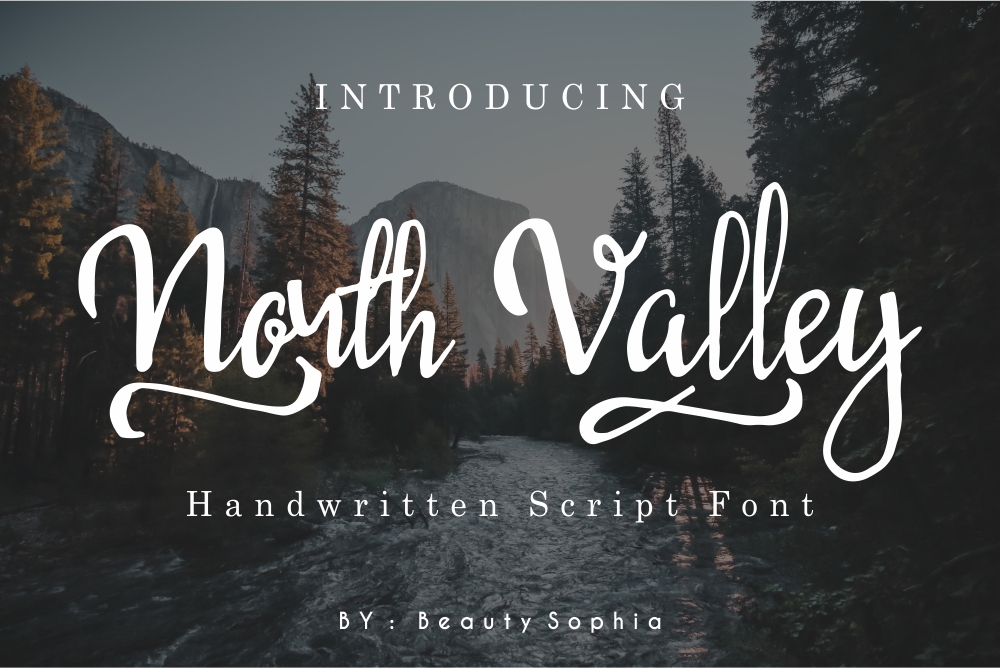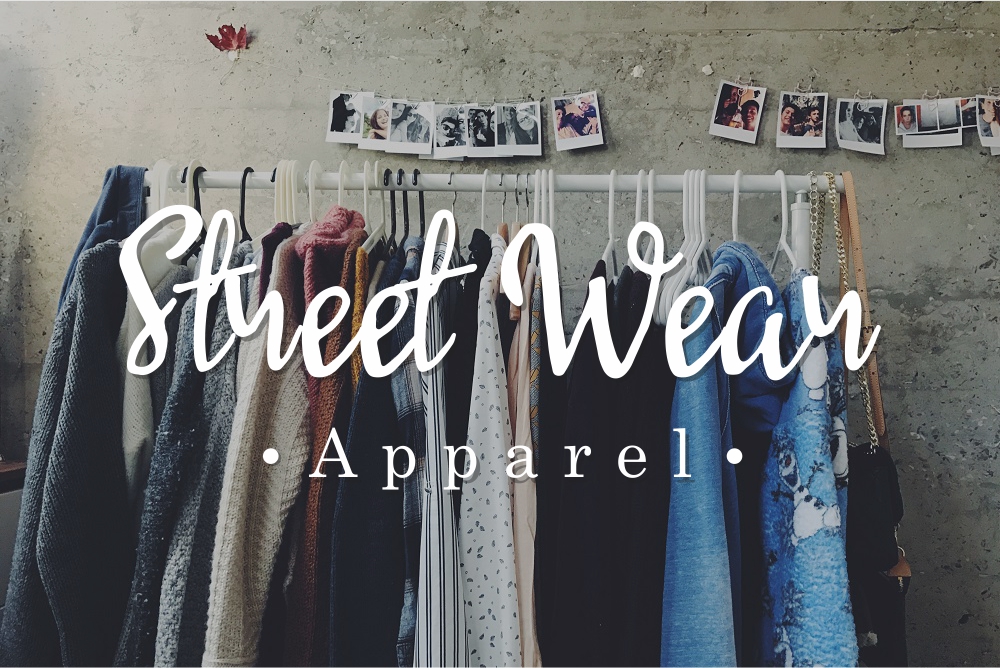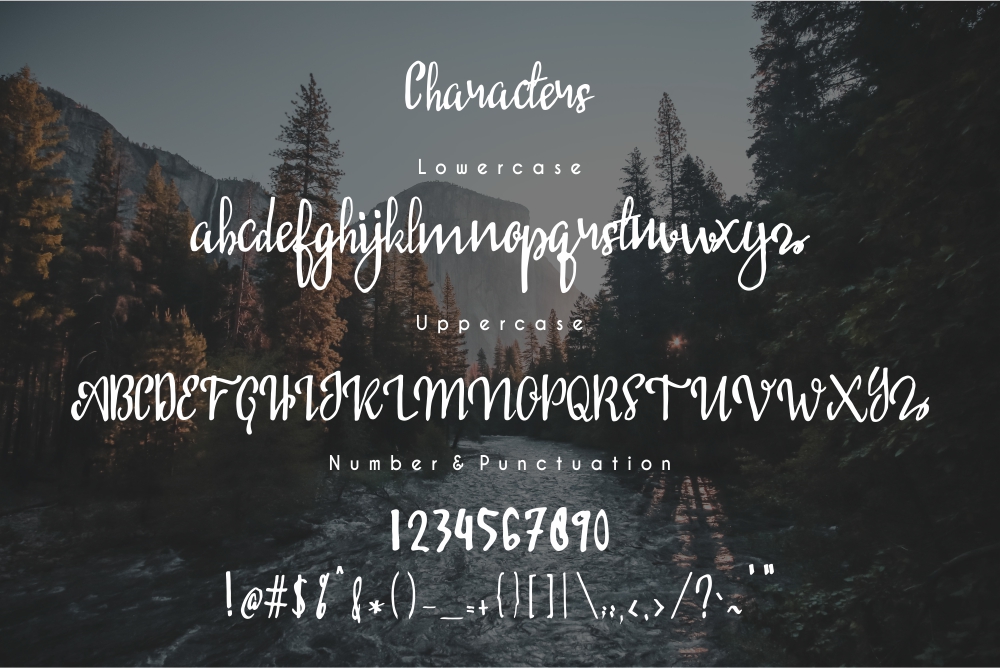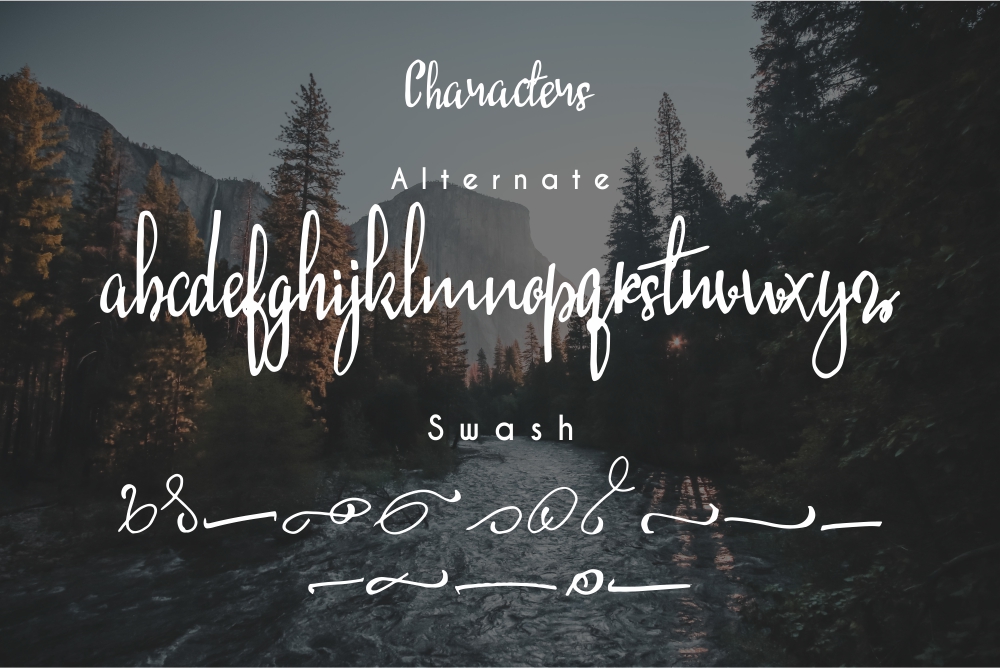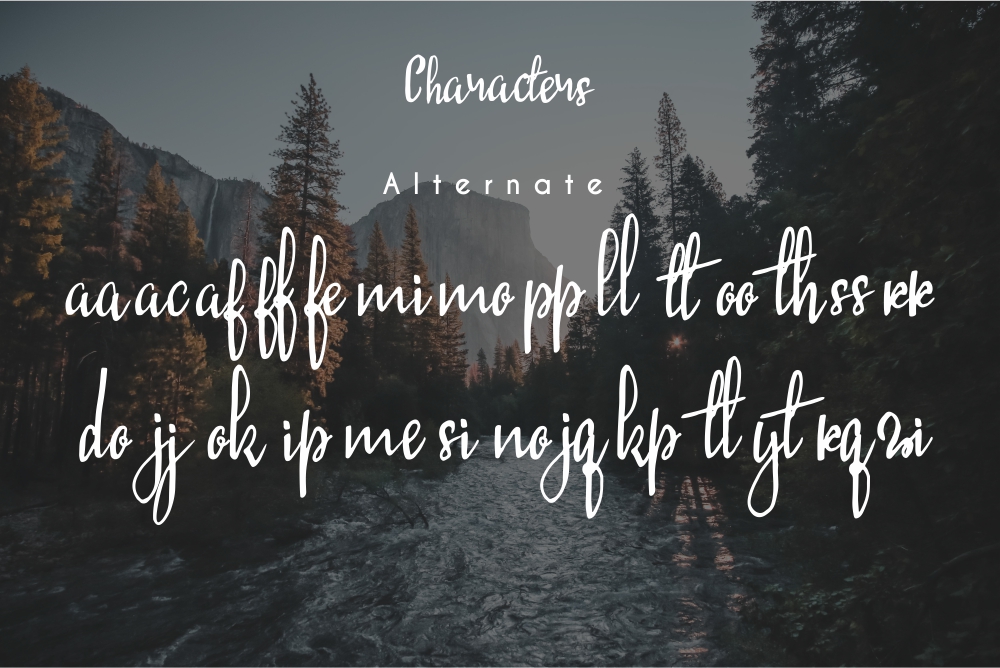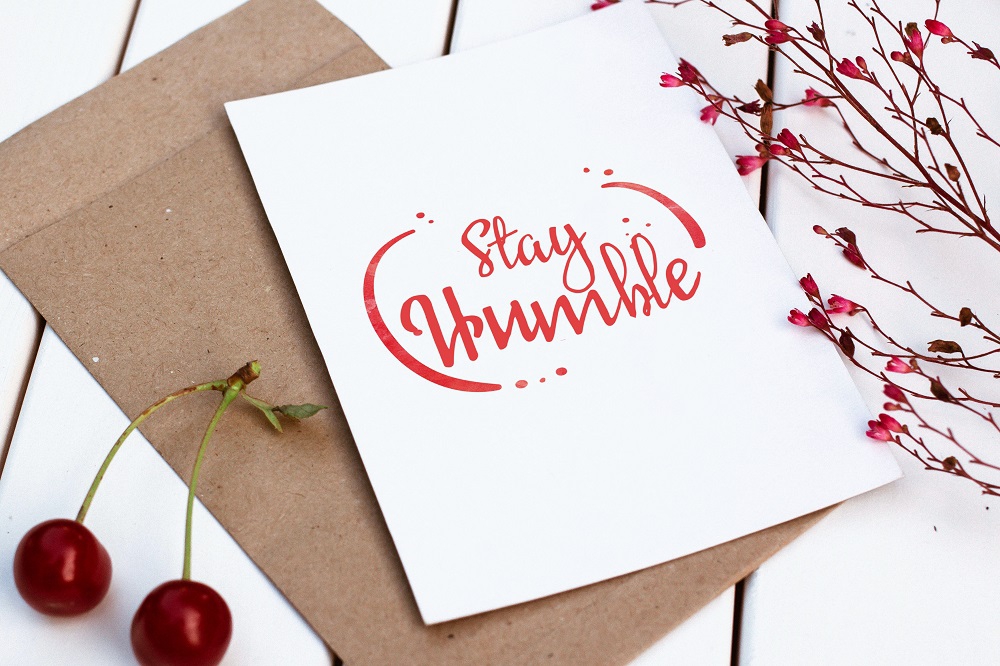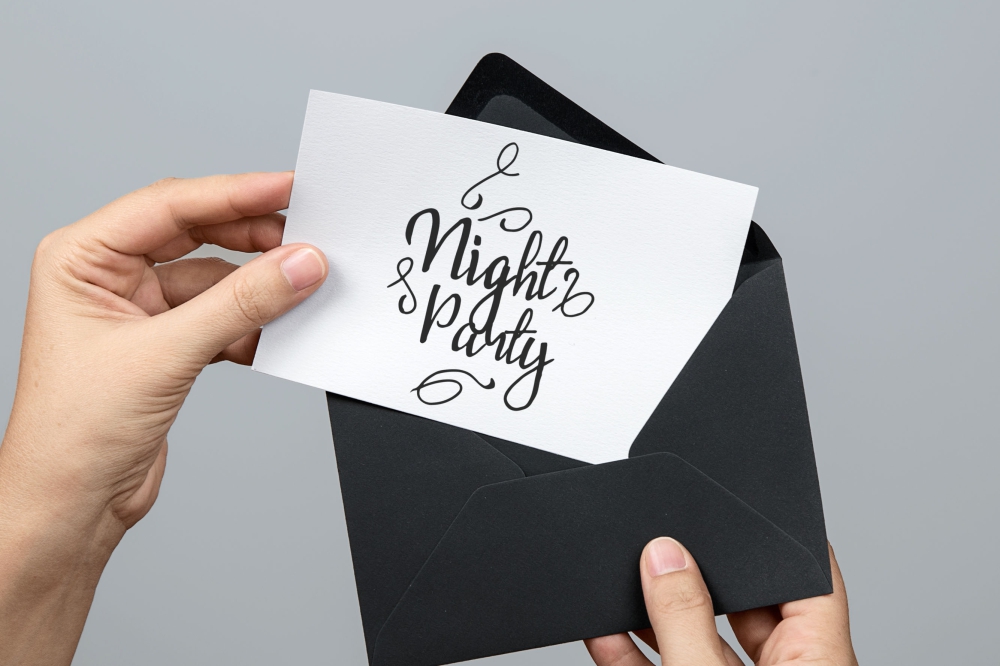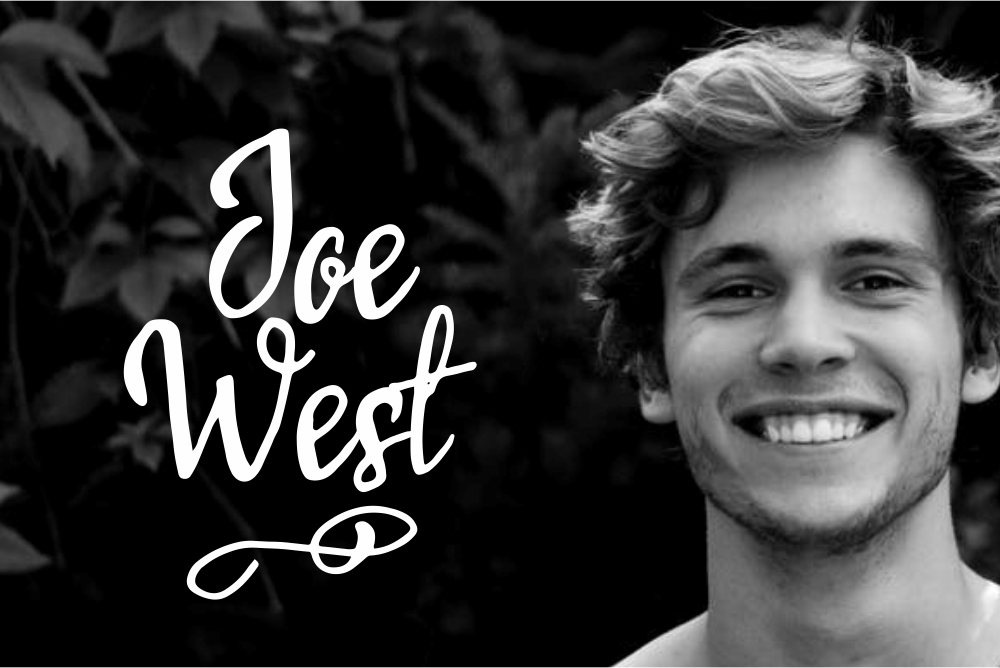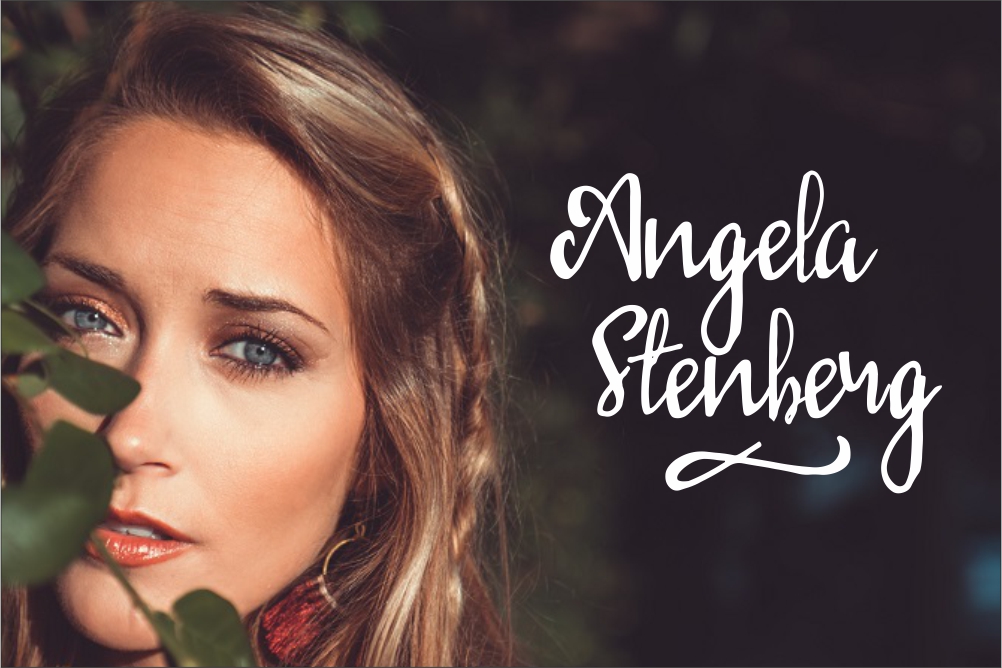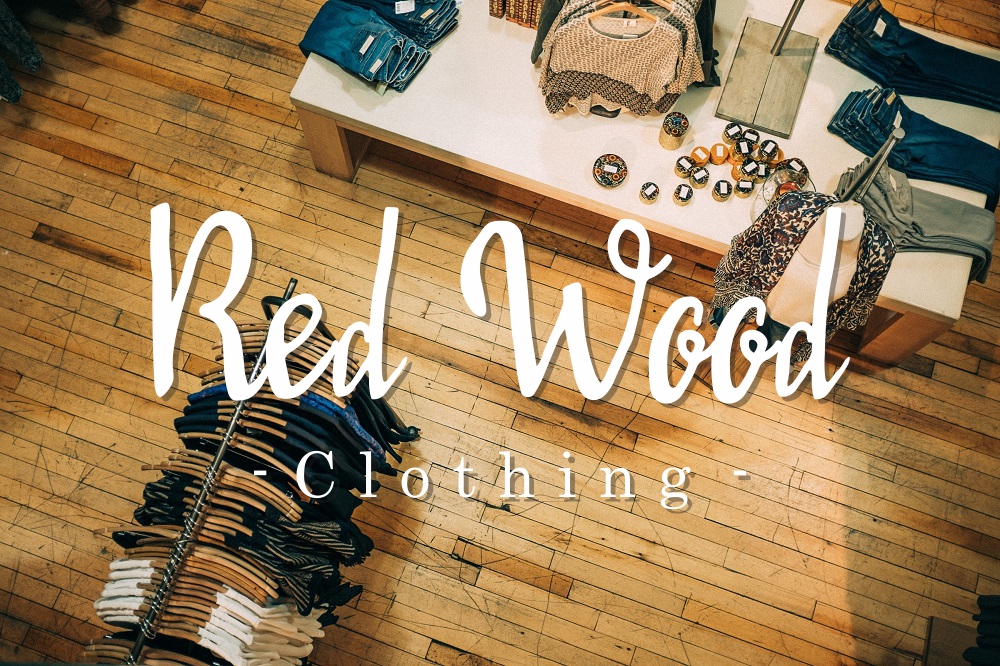
North Valley Font
About North Valley Font
North Valley is a stunning signature font that has a unique brush lettered style, perfect for designs that necessitate some whimsy. This font is ideal for branding content that needs a friendly yet fashionable approach.